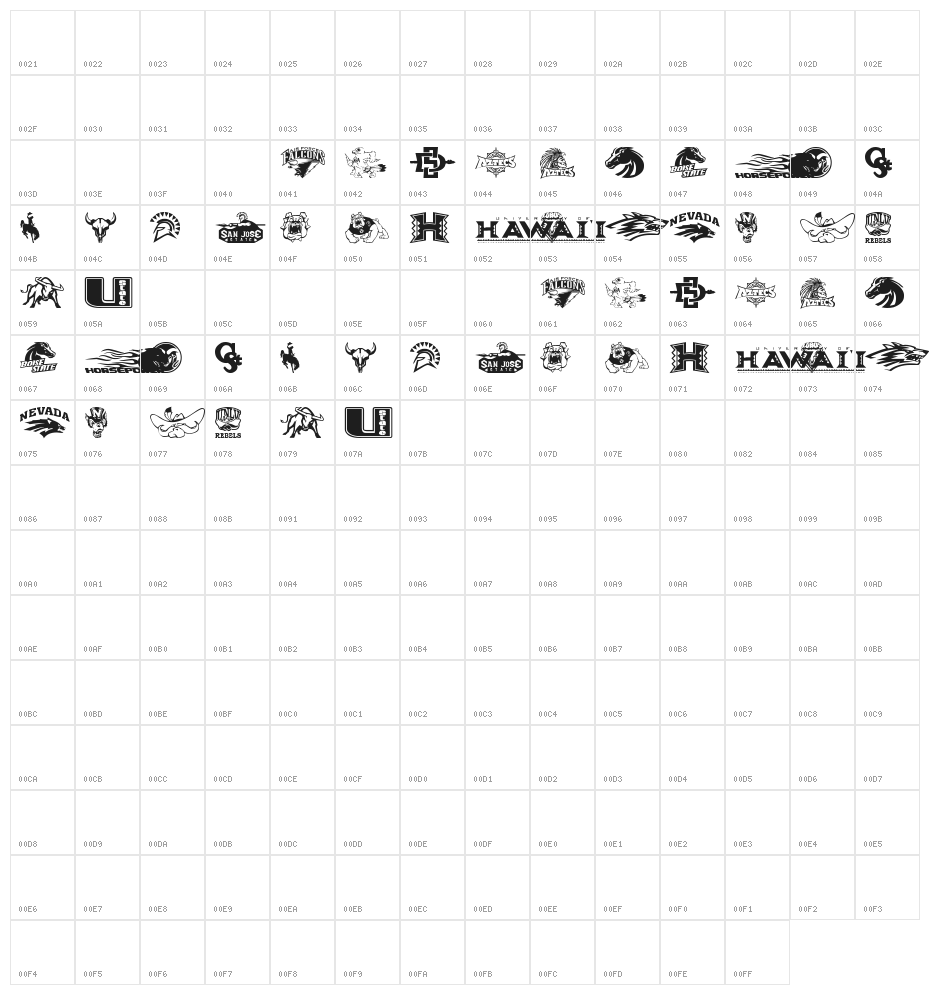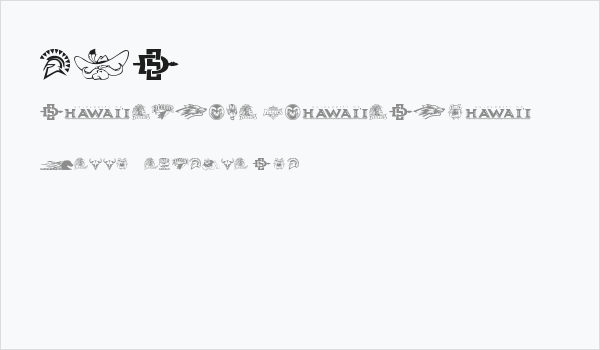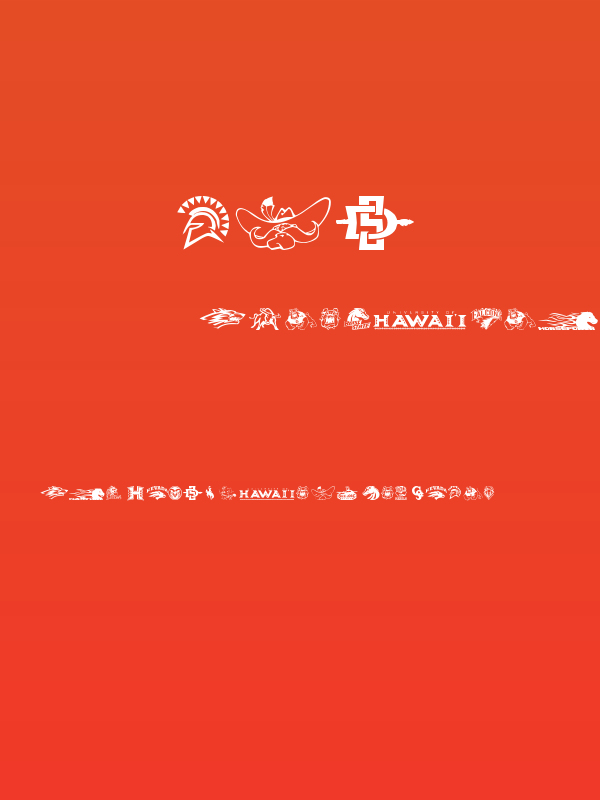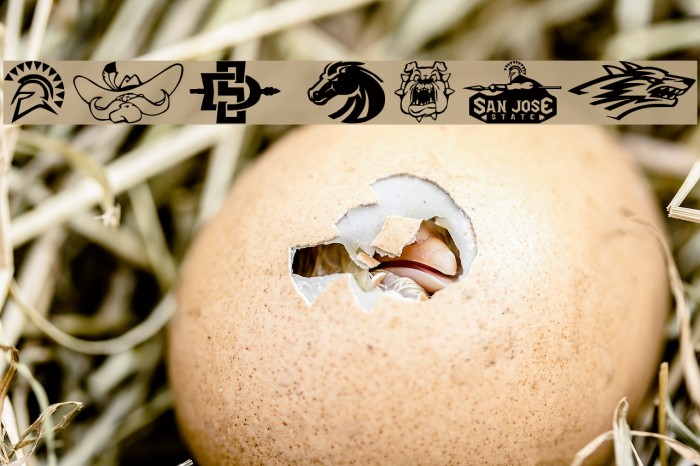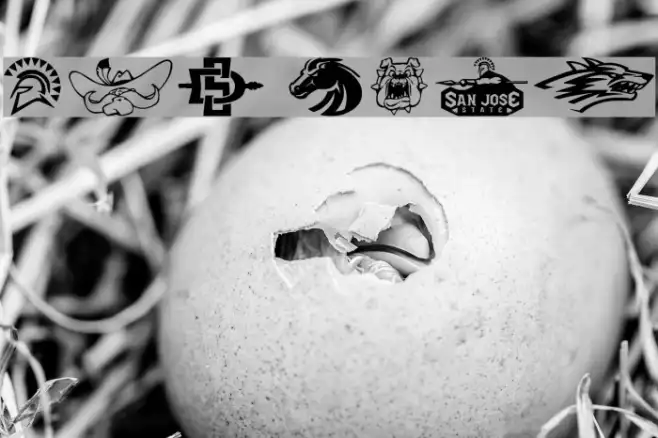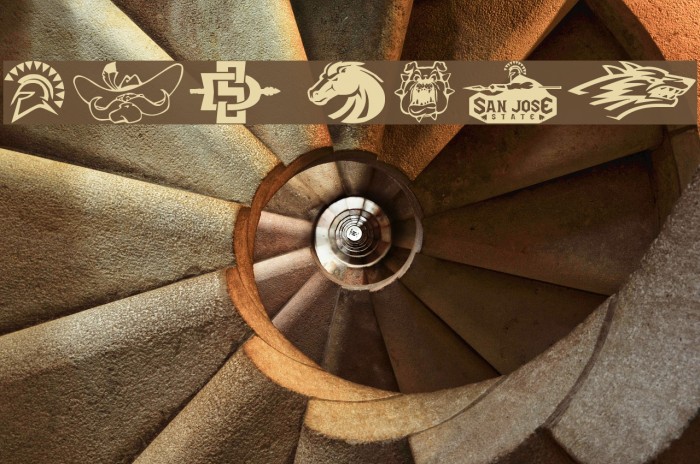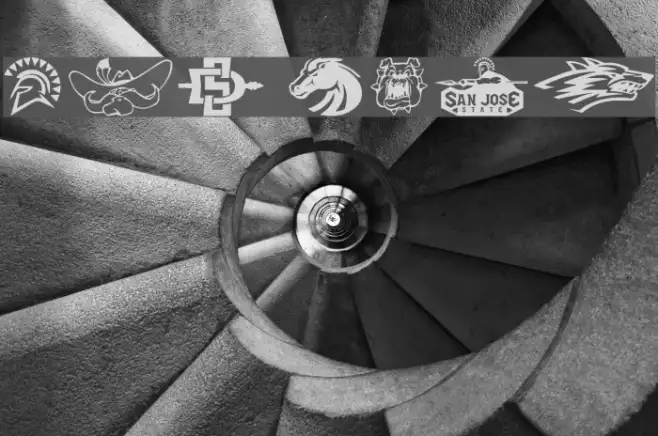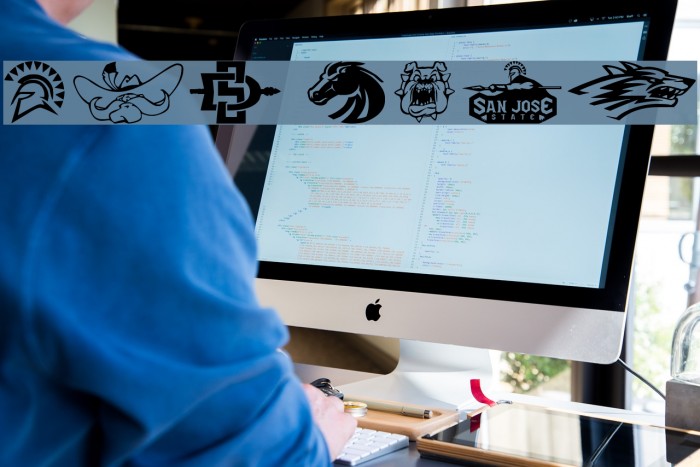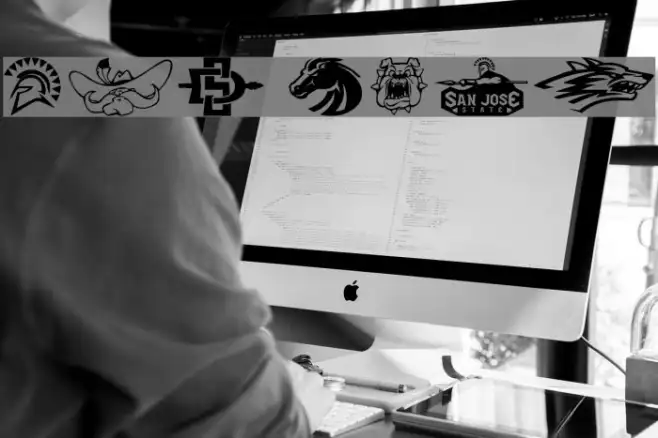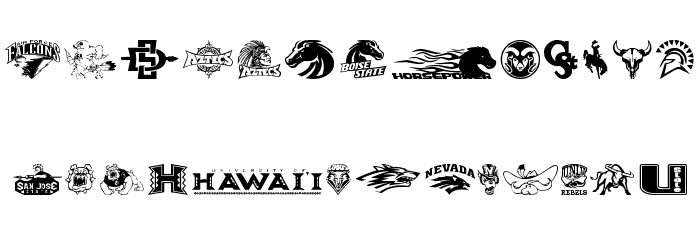
MWC Font
MWC Description
A collection of collegiate and sports team logos representing Mountain West Conference (MWC) universities, featuring a mix of stylized mascots, emblems, and wordmarks.
| Overall Style | Sporty, collegiate, emblematic |
| Use Case | Logos, sports team branding, merchandise |
| Proposed Projects | Sports branding, collegiate merchandise, event promotions, athletic apparel design. |